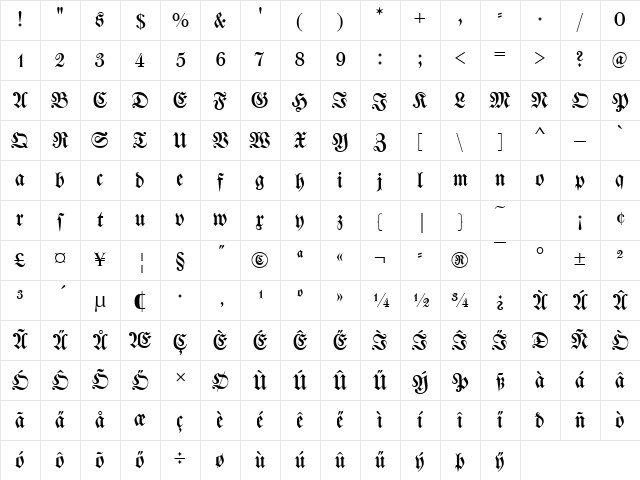
Complete Becker Fraktur Regular glyph index. Displaying only characters natively supported by Becker Fraktur Regular font.
Becker Fraktur draws on the rich tradition of blackletter calligraphy, with dense, angular strokes that evoke medieval manuscripts and old-world craftsmanship.
Font Pairing: Pair with a clean neutral sans-serif for body copy to let Becker Fraktur's character lead without overwhelming the composition.
Pro Tip: Reserve Becker Fraktur for display and logo use - pair it with a clean sans-serif for body copy to prevent the composition from feeling oppressive.